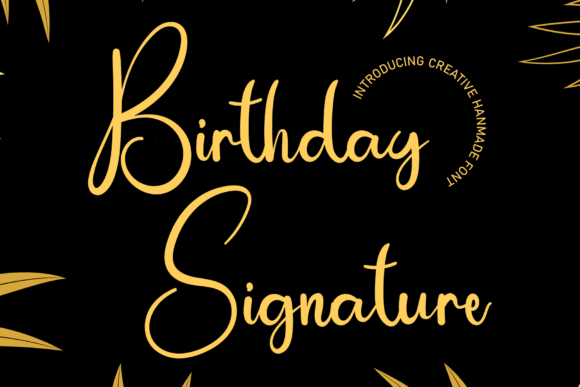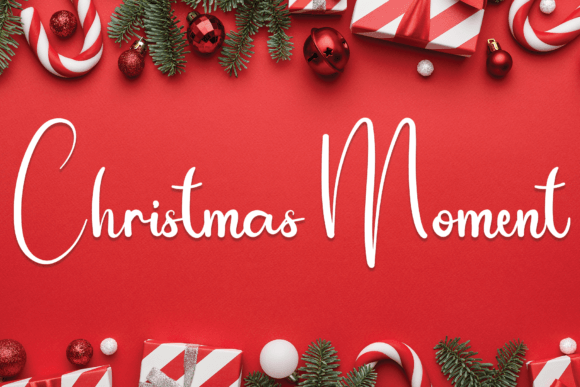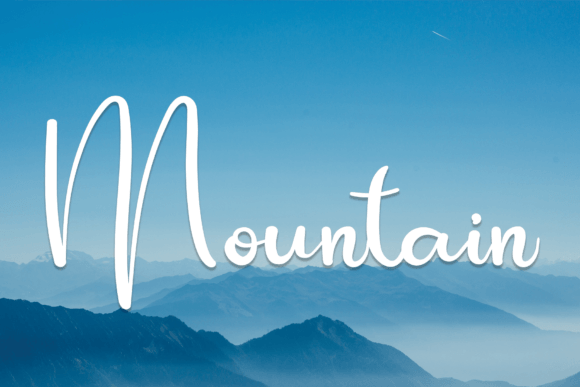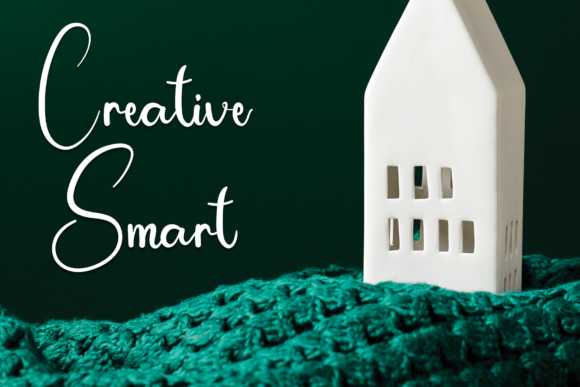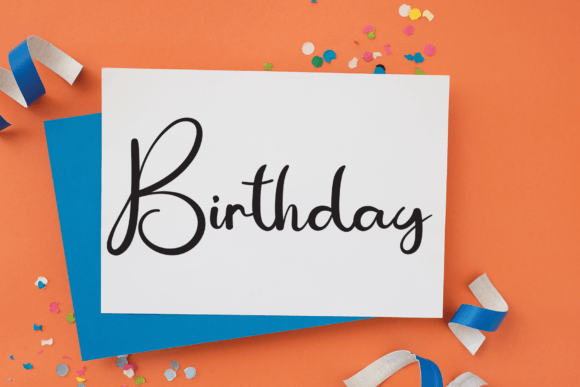
Birthday Signature Font
About Birthday Signature Font
Birthday Signature Font is a warm, approachable handwritten typeface that brings a charming personality to any creative project. With its soft strokes and friendly character, this font is perfect for conveying heartfelt messages, crafting designs, or adding a human touch to digital content. Its casual flow offers a balance of readability and aesthetic appeal, making it ideal for both personal and professional use.
Whether you’re planning a birthday invitation or enhancing a social media post, this font delivers just the right amount of elegance and whimsy to keep your work looking vibrant and joyful.
Where to Use Birthday Signature Font
Birthday SignatureFont is an excellent choice for various applications:
• 🎉 Birthday Cards & Invitations – Add a personalized, handwritten feel
• 🧷 Craft Projects – Ideal for Cricut or Silhouette projects
• 💌 Greeting Cards – Bring warmth to thank-you or holiday cards
• 📱 Digital Designs – Great for social media graphics, banners, and thumbnails
• 🛍️ Product Labels & Packaging – Perfect for boutique or handmade product branding
• 🖋️ Signatures & Quotes – Stylish yet easy to read for casual text overlays
Features of the Font
• ✍️ Handwritten Appeal – Offers an authentic pen-stroke style
• 💼 Professional & Personal Use – Fits everything from business branding to fun crafts
• 🔓 PUA Encoded – Access alternate characters and special swashes with ease
• 🌐 Multilingual Support – Ready for international projects
If you’re looking for a versatile handwritten typeface with a joyful flair, Birthday SignatureFont is a wonderful addition to your collection. Its clear lines and emotional tone make it ideal for any project that needs a human, heartfelt touch.